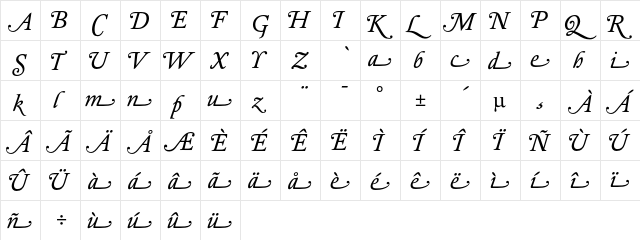
DTL Elzevir T Book Swash Italic
Design Context for DTL Elzevir Typeface
DTL Elzevir brings a calligraphic fluidity to the page — its connecting strokes and expressive curves give it an unmistakably human quality.
Font Pairing: Combine DTL Elzevir with a simple geometric sans for maximum contrast — the tension between flowing curves and clean structure is a classic typographic pairing.
Pro Tip: Pair DTL Elzevir with a clean sans-serif for supporting text. The contrast between fluid script and geometric structure creates an elegant typographic hierarchy.